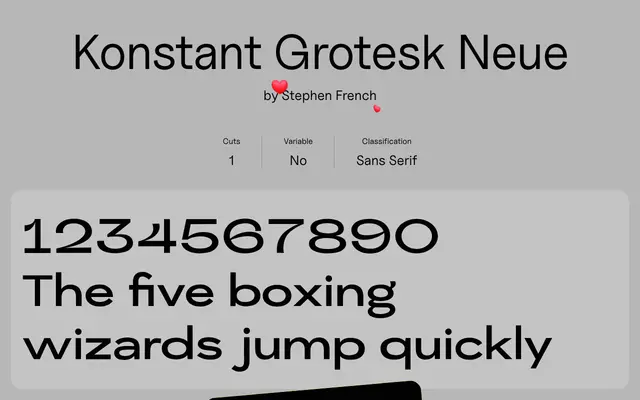
Konstant Grotesk Neue
A single-cut grotesque sans by Stephen French, available free for personal and commercial use.
A grotesque sans-serif released in one weight with no variable axis. Designed by Stephen French and distributed through Uncut, it carries no specified open-source licence beyond a general free-to-use declaration. Those needing multiple weights or italics will find the family limited.
Listed explicitly as Sans Serif by the foundry; the name 'Grotesk' indicates a grotesque sans-serif tradition.